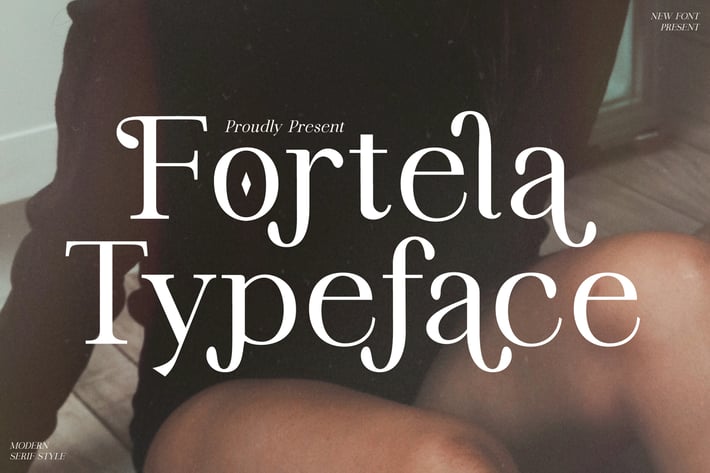
Fortela Typeface Font
Fortela Typeface is a modern serif display font with a refined editorial vibe and elegant contrast. Its crisp curves, stylish terminals, and classy proportions make it feel high-end yet versatile — perfect for headlines that need to look instantly premium and timeless.
Modern serif display style with elegant contrast
Sharp, refined letterforms for a luxury editorial feel
High readability for headlines and short text
Stylish alternates for more expressive typography
Luxury branding & identity
Editorial headlines and magazine-style layouts
Fashion, beauty, and lifestyle campaigns
Posters, covers, and hero typography
Premium packaging and product labels
Where modern elegance meets timeless serif charm — built to make every headline feel expensive.*